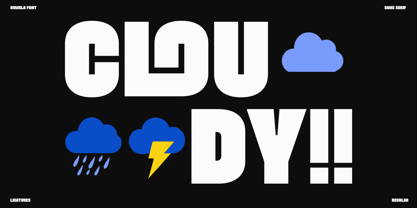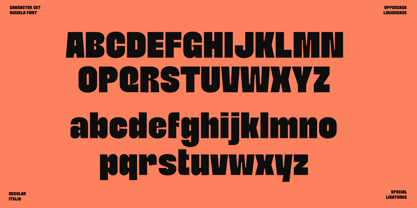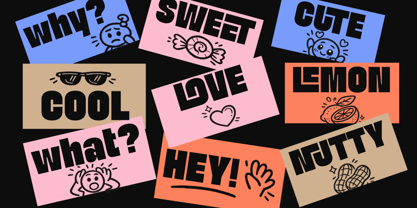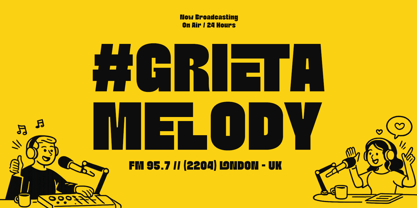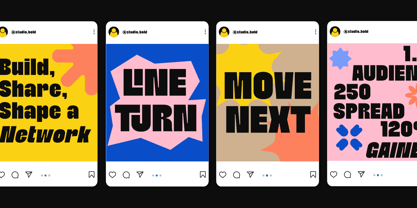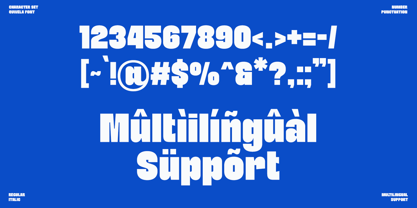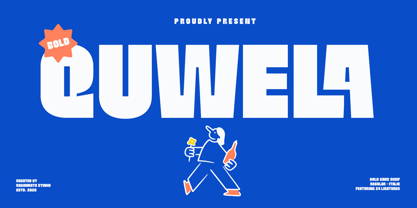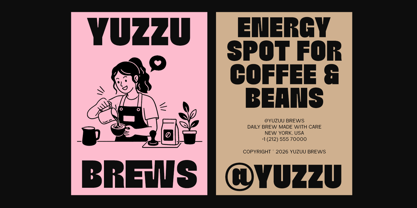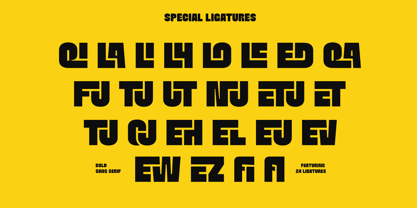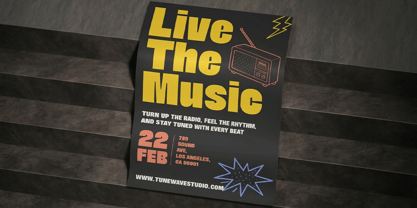
Quwela
by RagamKata
The Quwela Font Family was designed by Yogiswhara Dio Prakoso Riadi and published by RagamKata. Quwela contains 2 styles and family package options. More about this family
Quwela is a bold sans serif font designed to make a strong and playful visual statement. With its chunky letterforms and confident structure, it captures attention instantly while maintaining a clean and modern feel. The design balances power and friendliness, making it perfect for brands that want to stand out without losing approachability. Built for high-impact usage, Quwela excels in headlines, posters, packaging, and branding projects. Its bold personality pairs beautifully with vibrant layouts and expressive visuals, making it ideal for creative industries such as food, kids branding, lifestyle products, and social media campaigns. The inclusion of ligatures adds subtle uniqueness and enhances typographic flexibility. With multilingual support and both regular and italic styles, Quwela adapts effortlessly to various design needs. Whether you're crafting a fun brand identity or a bold promotional campaign, this font delivers energy, clarity, and modern appeal in every letter.